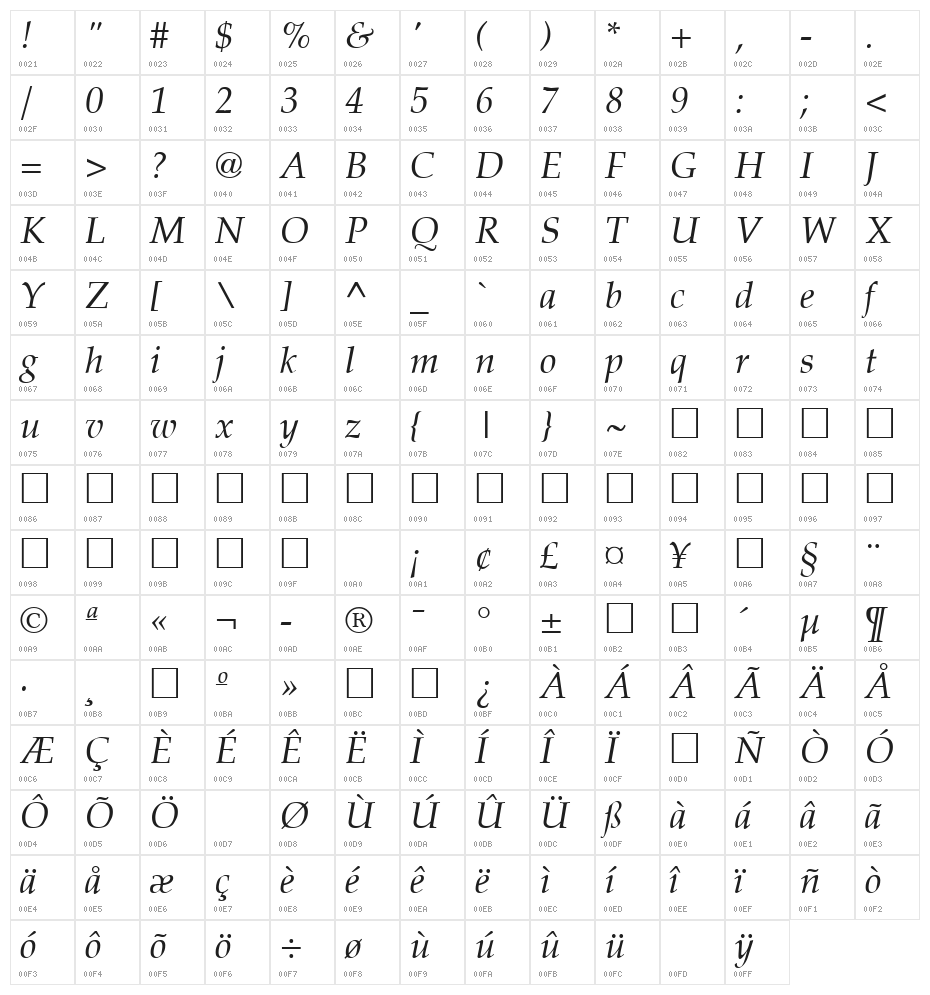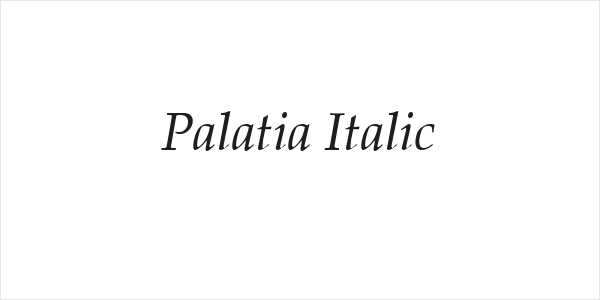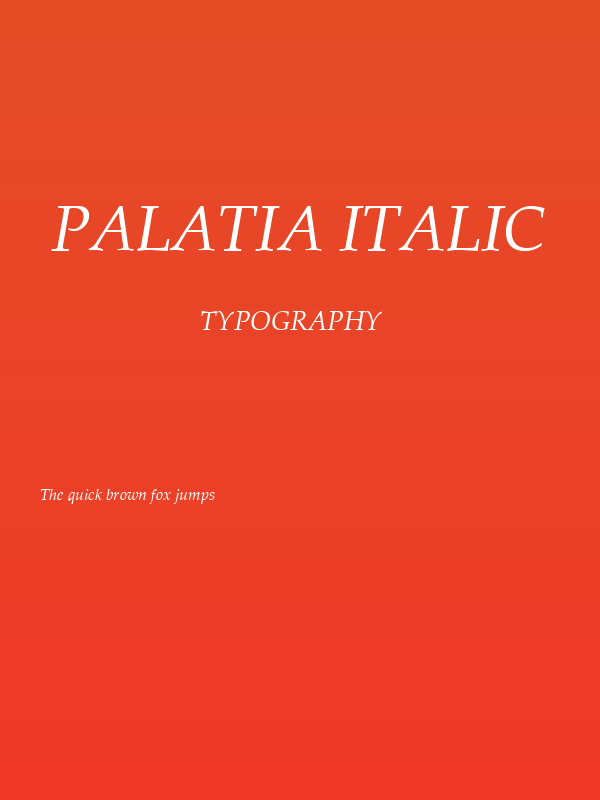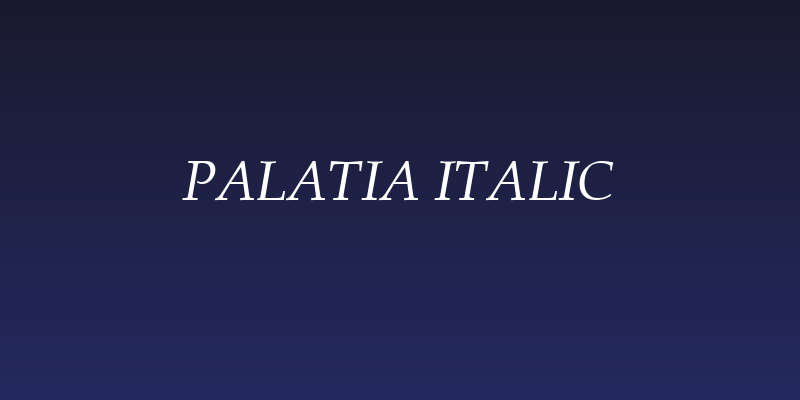
Palatia Italic Font
Palatia Italic Description
This elegant serif typeface features a classic italic style with smooth, flowing lines and a refined appearance. The characters are slightly slanted, giving a sense of motion and sophistication. The font maintains a consistent stroke width, offering a medium contrast that enhances readability while preserving its graceful aesthetic. Its timeless design is suitable for formal and professional applications, making it an excellent choice for projects that require a touch of elegance and tradition.
Overall StyleClassic
Proposed ProjectsIdeal for wedding invitations, formal documents, book covers, and elegant branding.